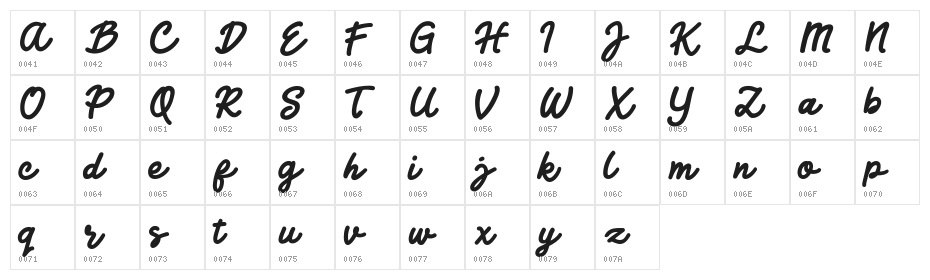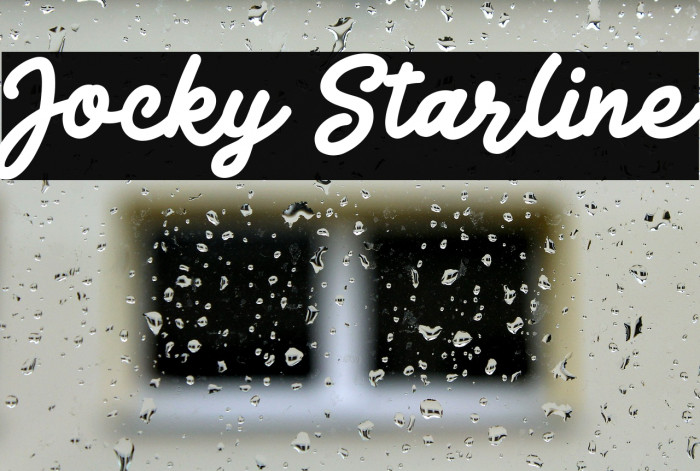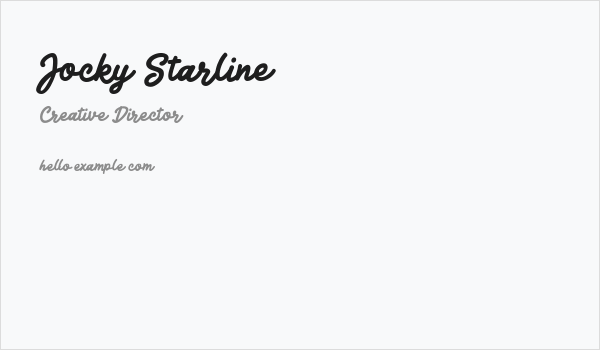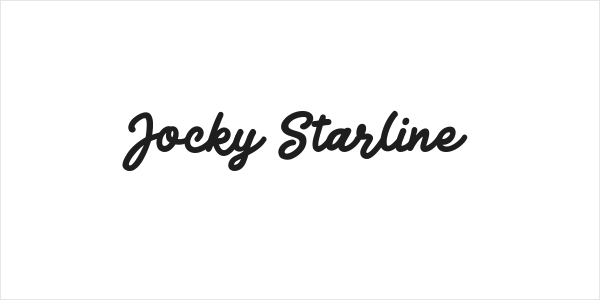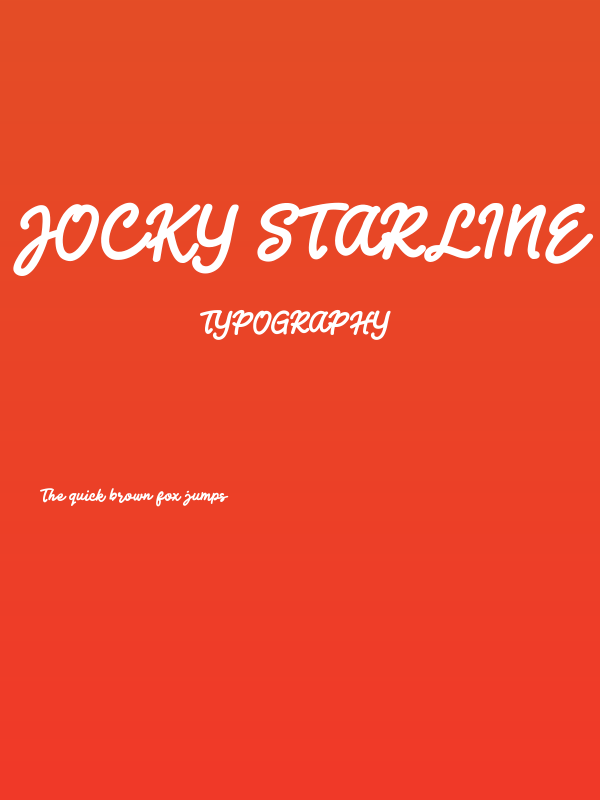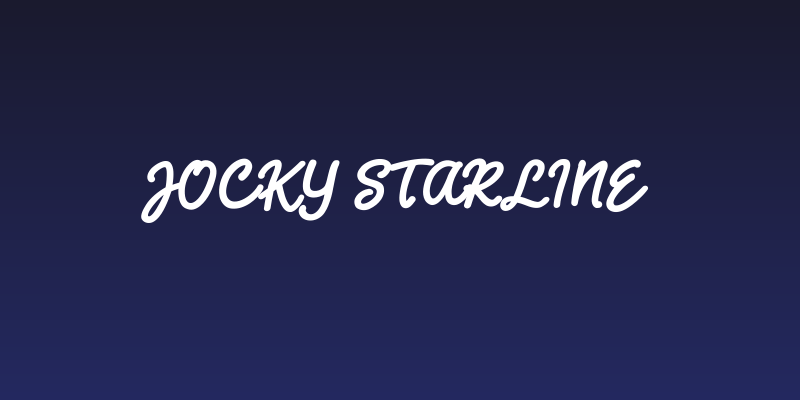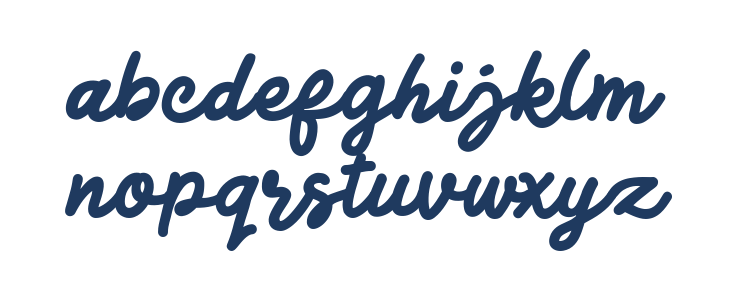
Jocky Starline Font
Jocky Starline Description
This font showcases a dynamic and flowing script style, characterized by its smooth, cursive strokes that connect seamlessly between letters. The uppercase letters maintain a consistent height, while the lowercase letters exhibit a playful bounce, adding a lively rhythm to the text. The overall appearance is bold and confident, with a medium contrast in stroke thickness that enhances readability while preserving the font's elegant flair. The rounded terminals and slight slant contribute to its approachable and friendly demeanor, making it suitable for a variety of creative applications.
| Proposed Projects | Ideal for branding, invitations, greeting cards, and creative projects that require a personal touch. |